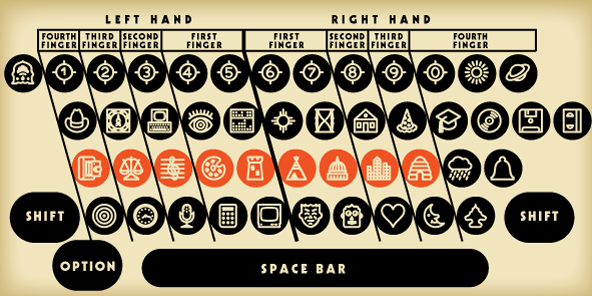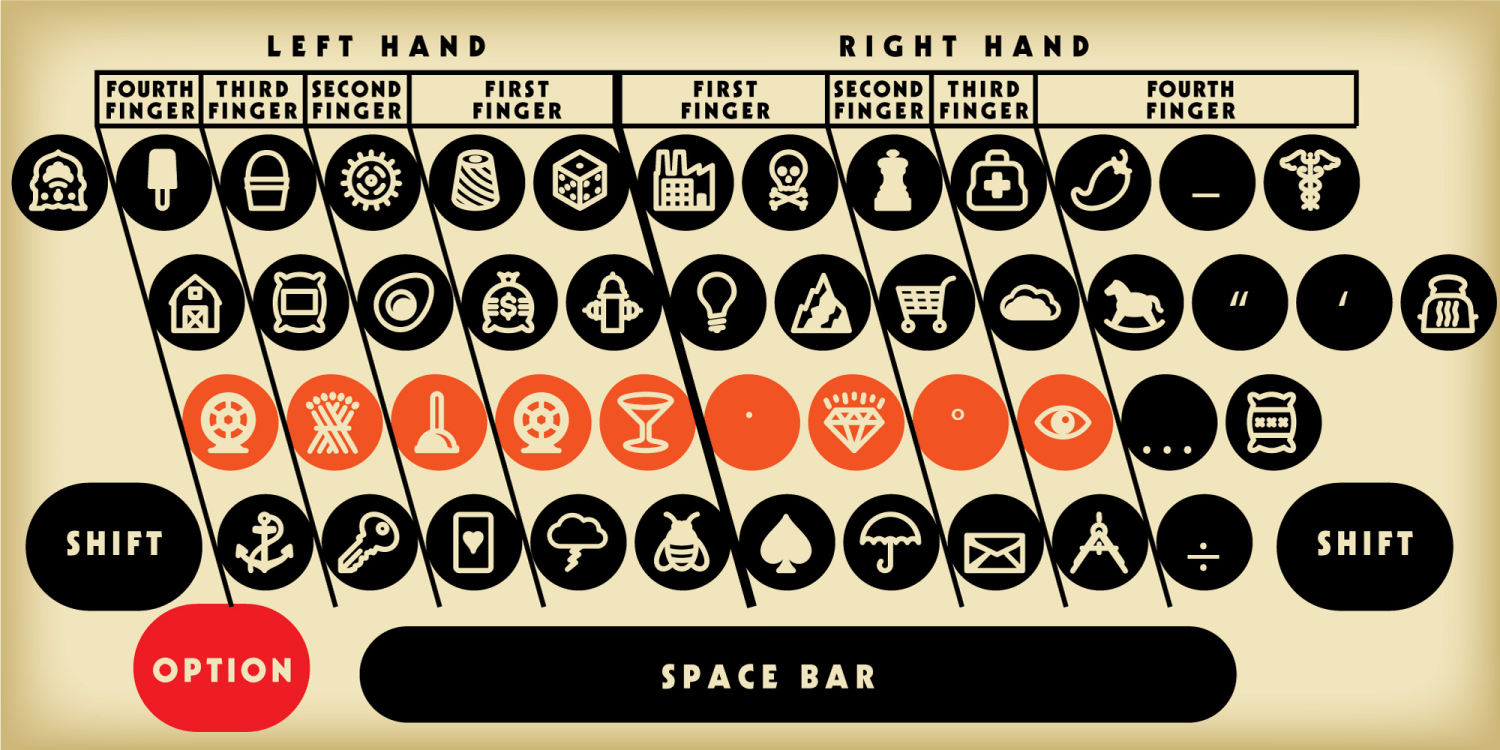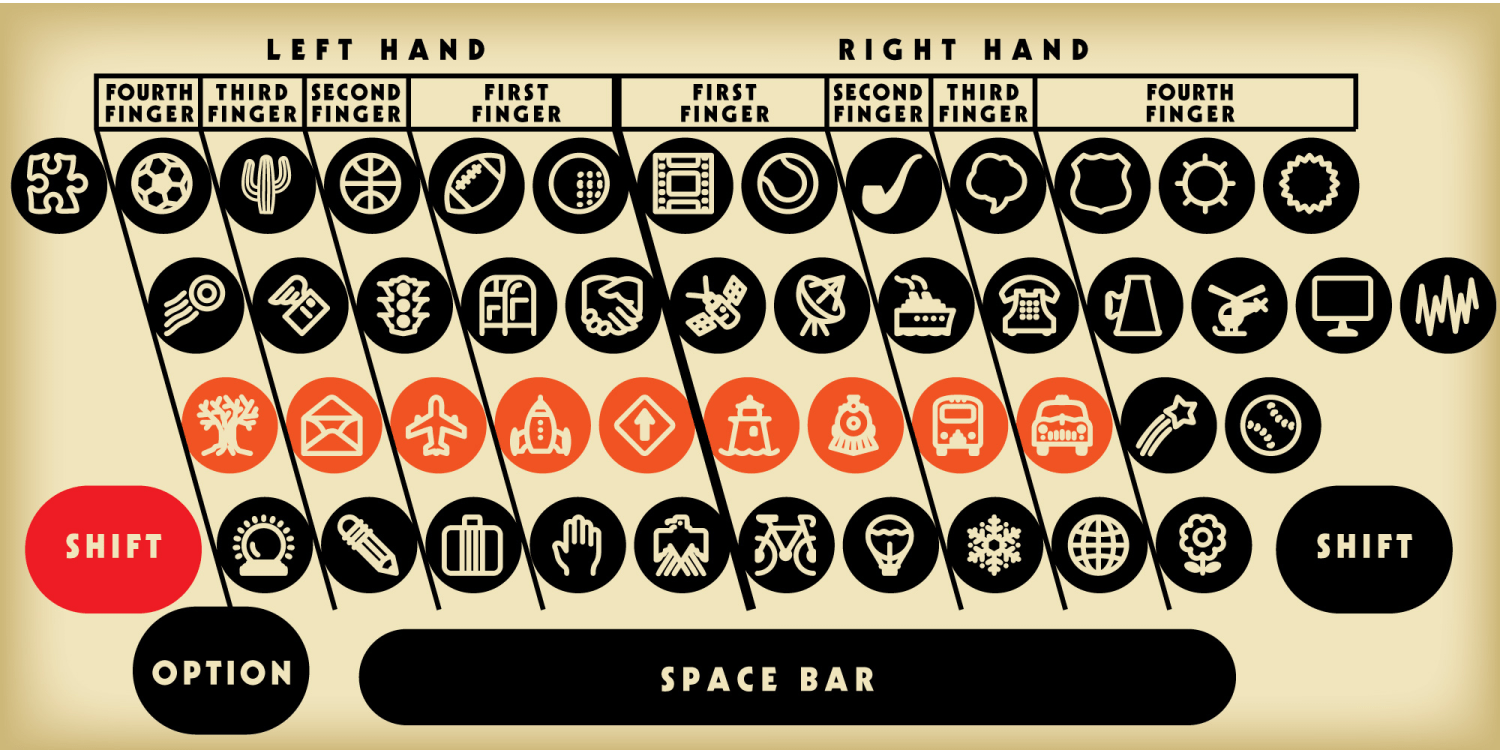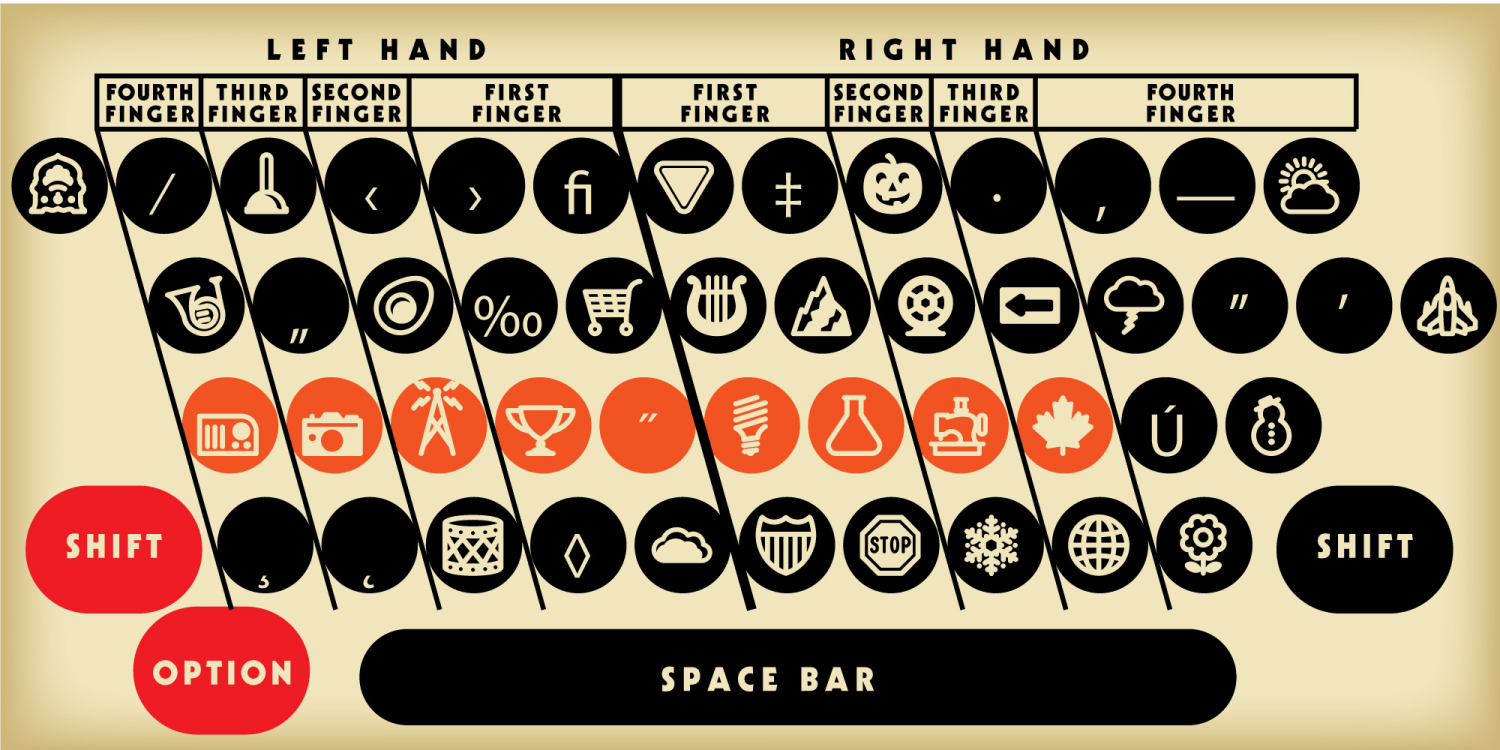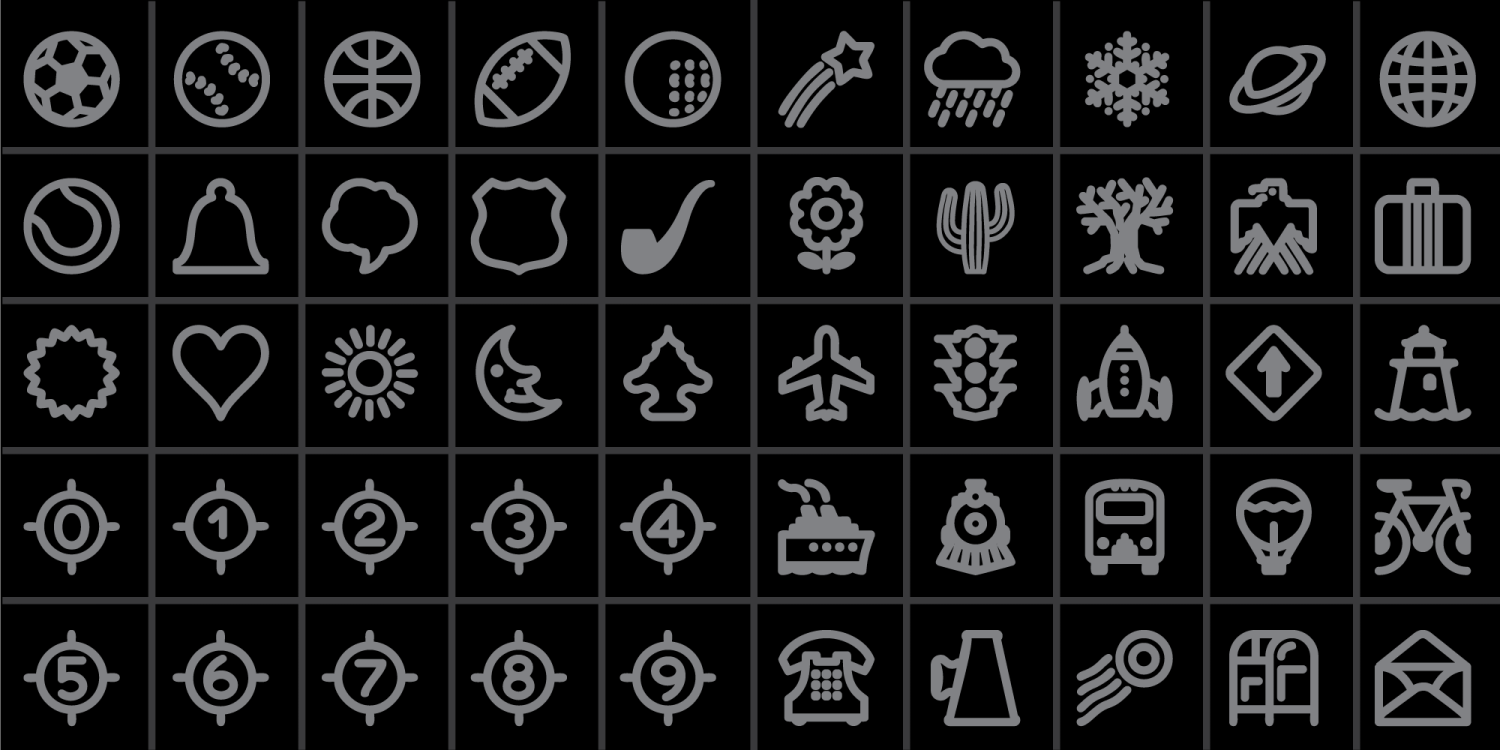
About Fatline Bold
Fatline Bold is a cross between a collection of random symbols and a game of “guess what that’s supposed to be”. Accessible (mostly) with keystrokes, but more reliably with the glyphs panel, they will confuse and amuse but, hopefully…